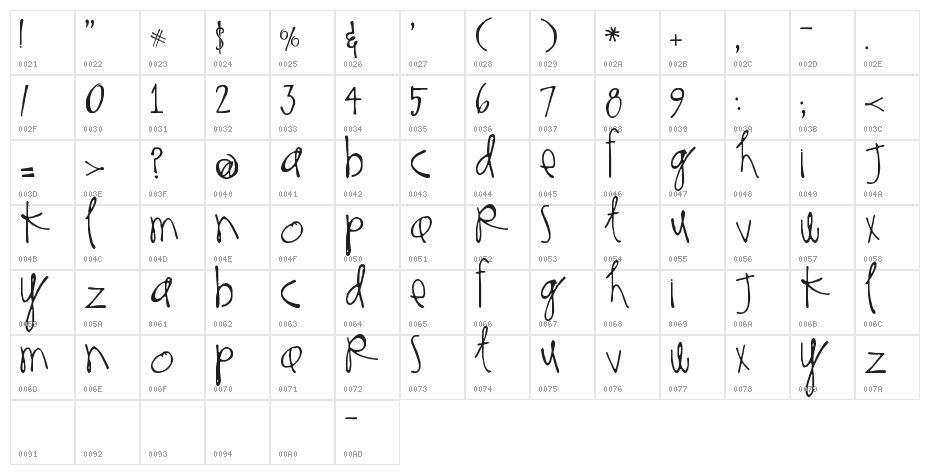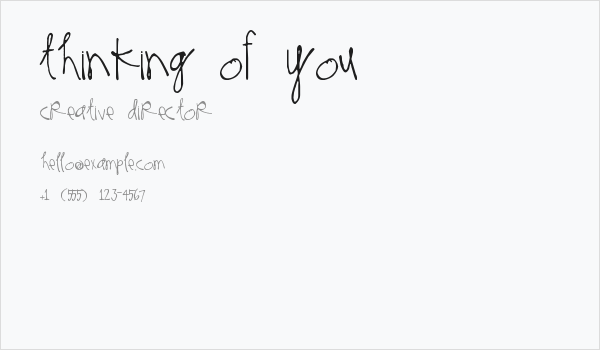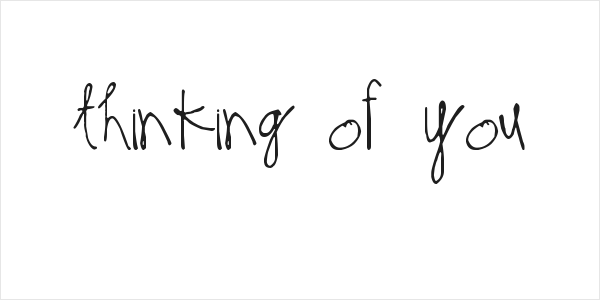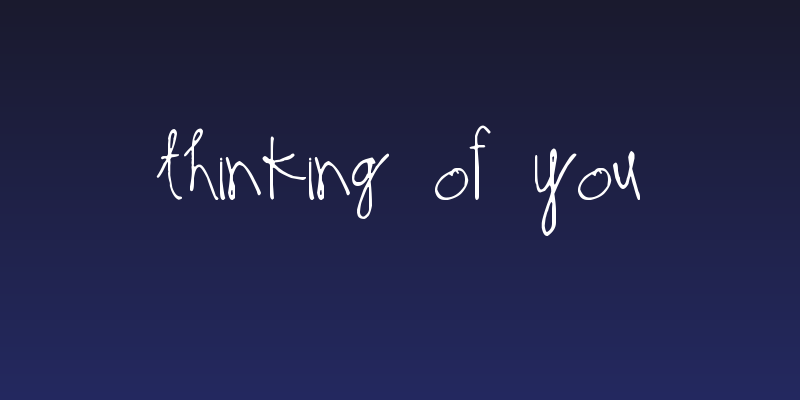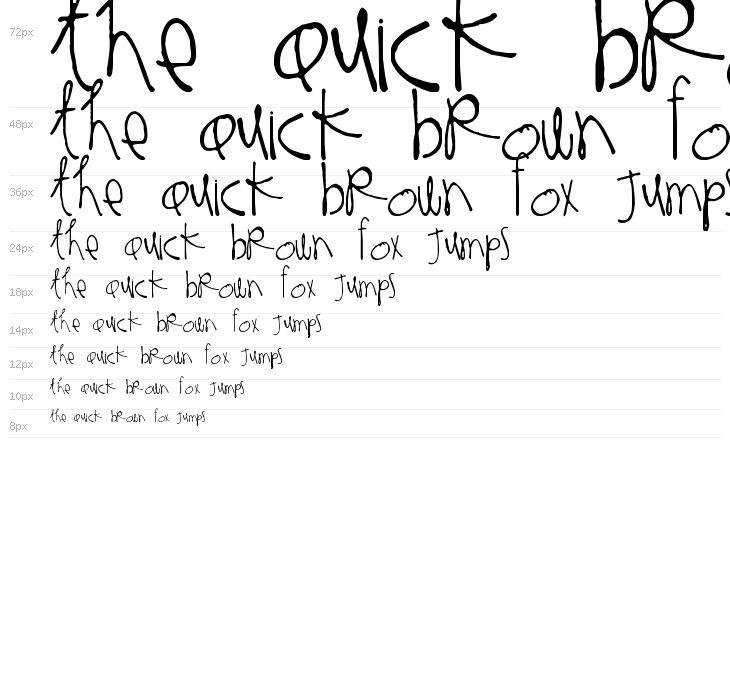
Thinking of You Font
Thinking of You Description
This font exudes a playful and whimsical charm, characterized by its handwritten style with a casual and friendly appearance. The letters are slightly irregular, giving it a personal touch that mimics natural handwriting. The strokes vary in thickness, adding a dynamic and lively feel to the text. The characters are well-spaced, ensuring readability while maintaining a relaxed aesthetic. This font is perfect for projects that require a personal and informal tone, such as greeting cards, invitations, or creative branding. Its unique style makes it stand out, offering a warm and approachable vibe.
| Overall Style | Whimsical |
| Use Case | Greeting cards, Invitations, Creative branding |
| Proposed Projects | Ideal for greeting cards, invitations, personal branding, and creative projects. |